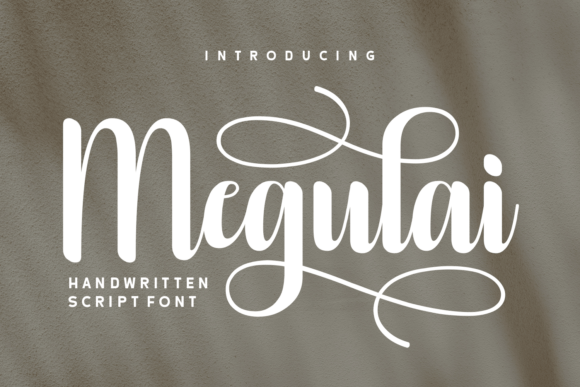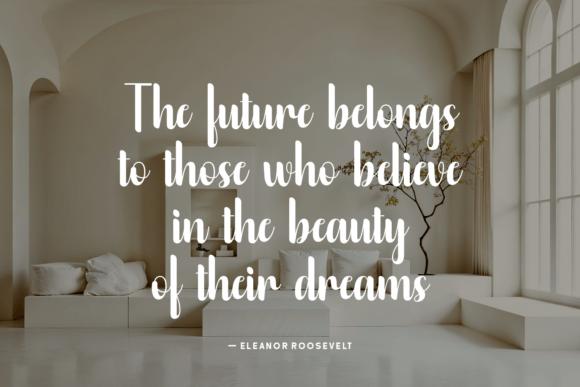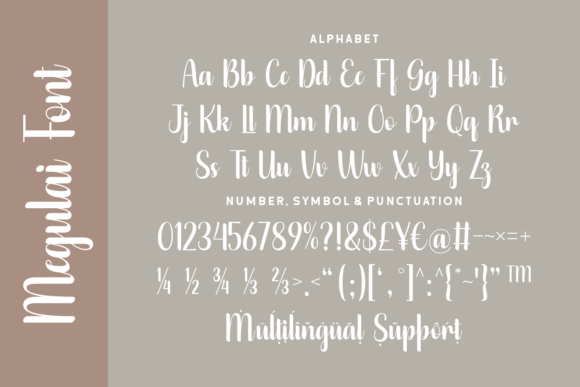
Megulai Font: Elegant Script for Wedding Stationery & Logo Design
About the Megulai Font
Elevate your designs with Megulai Font, a font that combines sophistication with readability. Megulai is a luxurious handwritten script font that exudes elegance and flair. Its refined letterforms are enhanced with dramatic swashes and stylish loops, making it perfect for upscale branding, wedding stationery, editorial headers, and high-end packaging. Whether you’re crafting a romantic logo or a glamorous invitation, Megulai delivers sophistication and artistry with every stroke.
Megulai’s elegant, flowing nature makes it ideal for projects requiring a touch of high-end sophistication. It shines in headlines, short text blocks on invitations or packaging, and as a signature element in branding. However, its ornate style is less suitable for body text or user interfaces where legibility is paramount; long passages set in Megulai would be difficult to read.
Pairing Megulai effectively requires a contrasting typeface to balance its flourish. A clean sans-serif like Montserrat or a geometric sans-serif such as Futura would provide a strong counterpoint, enhancing readability and creating visual interest. For a warmer feel, consider pairing it with a serif like Playfair Display.
Megulai projects an overall air of refined luxury and romanticism. Brands aiming for a sophisticated, high-end image, such as luxury goods, high-fashion, or exclusive event planners, would find it particularly effective.
Megulai Font Usage Examples
Megulai Font Example